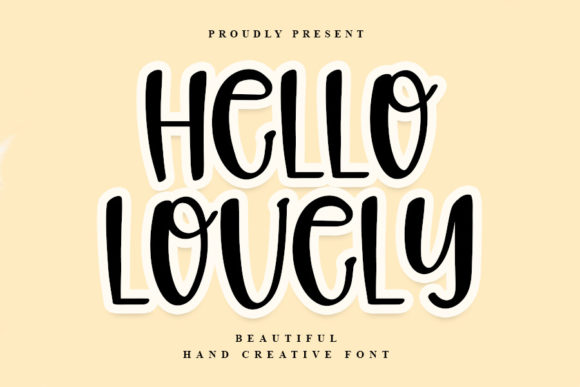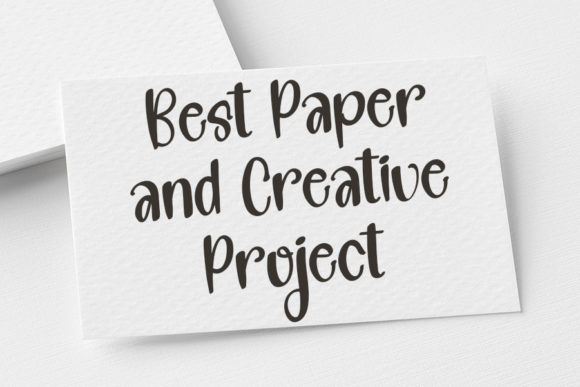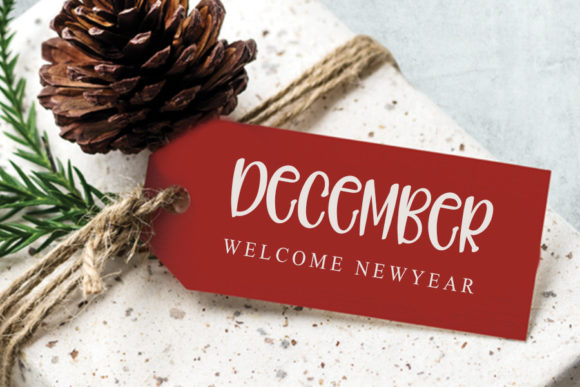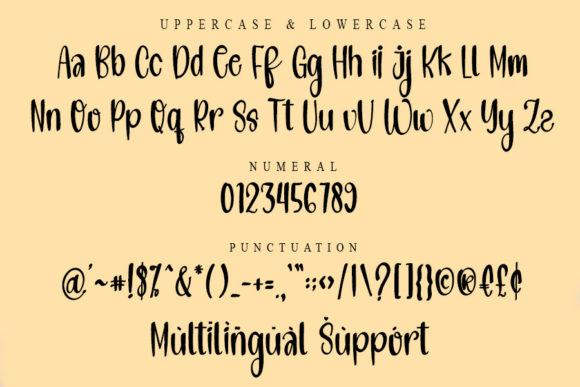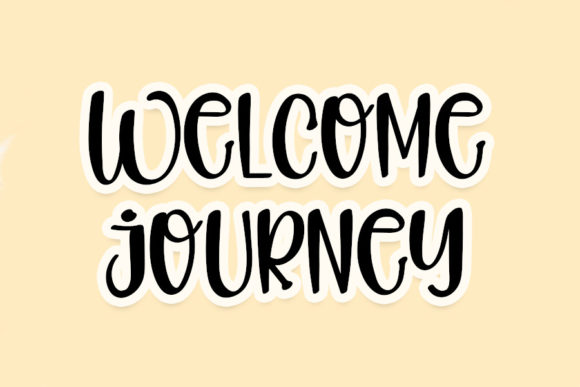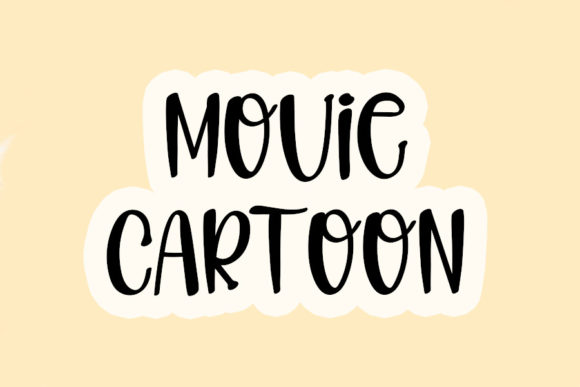
Hello Lovely Font
About Hello Lovely Font
Hello Lovely is a playful and smart-looking handwritten font. It is the ideal choice for creating eye-catching logos, branding, and quotes. Every letter has a unique and beautiful touch, which will make your design come alive!